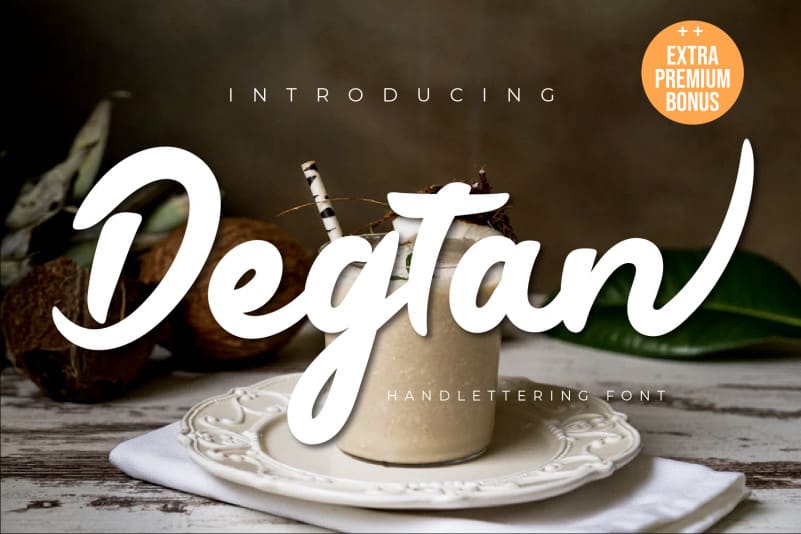
Degtan Script Font
Degtan Script Font is a modern handwritten font, carefully handcrafted to become a true favorite. Its casual charm makes it appear wonderfully down-to-earth, readable and, ultimately, incredibly versatile.
Degtan Script Font will look outstanding in any context, whether it’s being used on busy backgrounds or as a standalone headline!